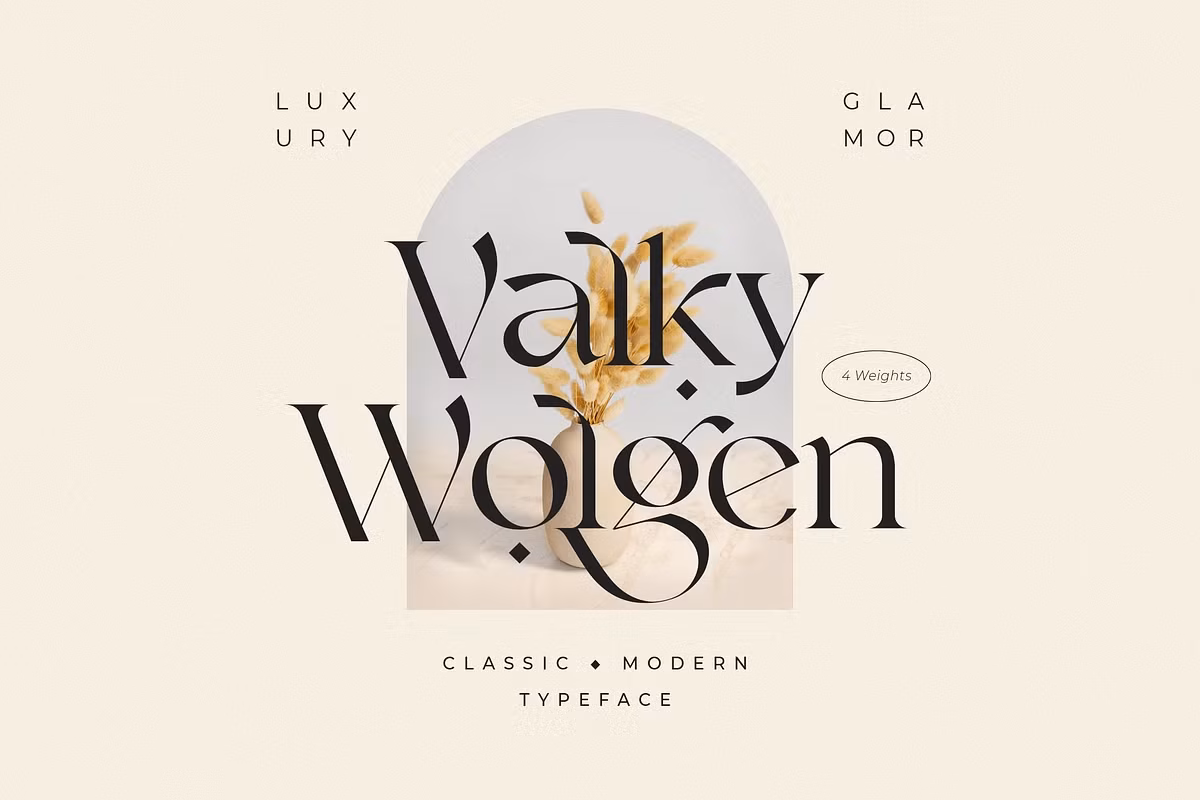
Valky Classic Modern Typeface Free Download
Please note, you must purchase this font for commercial use. However, you can easily download Valky Classic Modern Typeface Free Download for personal use and testing purposes. Valky Classic Modern Typeface is a sophisticated and versatile typeface that blends classic design with modern aesthetics. Perfect for logos, branding, editorial designs, and more, this font offers a timeless elegance while maintaining a contemporary edge. Its clean lines and refined letterforms make it ideal for high-end projects that require both readability and style. Whether you're working on a luxury brand identity, a chic magazine spread, or promotional materials, Valky Classic Modern Typeface Free Download will elevate your design. Download Valky Classic Modern Typeface Free Download today and explore its potential before opting for a commercial license.